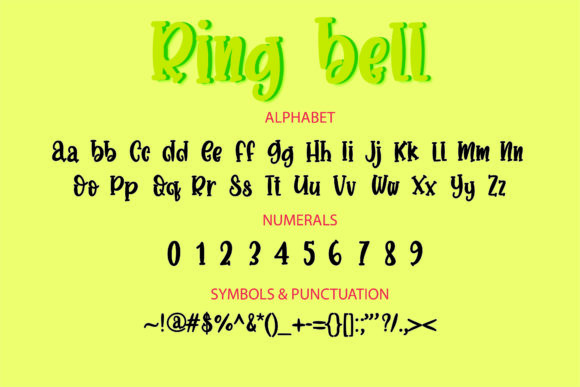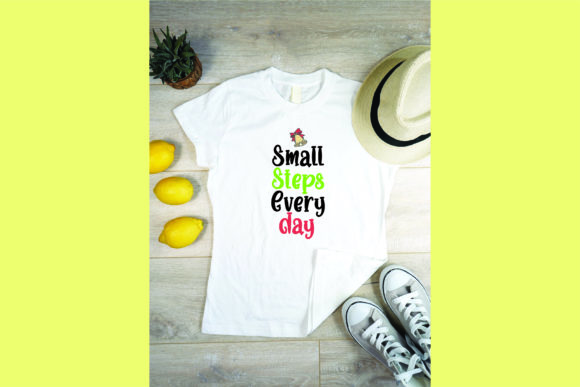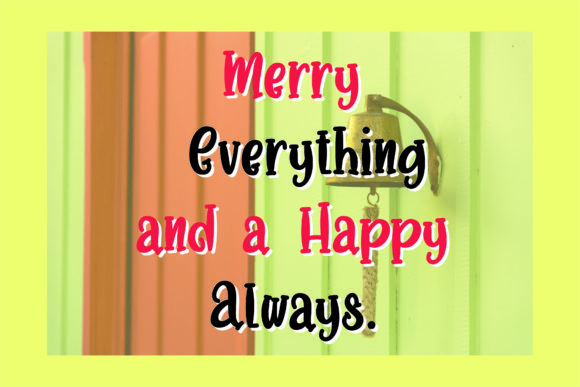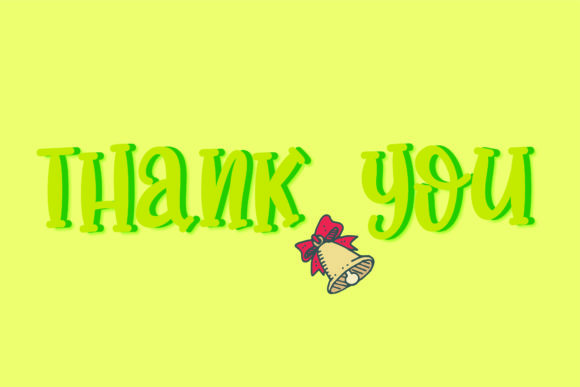
Introduction to Ring Bell Font
Have you ever stared at a blank page, eager to bring your creative project to life, but struggling to find the perfect font to make it pop? For designers, the right font can be the difference between a mediocre design and a stunning masterpiece. That’s where the Ring Bell Font comes in – a charming, adaptable display font that’s sure to elevate your work.
With its friendly and high-quality design, the Ring Bell Font is an invaluable resource for designers looking to create eye-catching logos, branding, and quotes. Its unique and beautiful touch makes every letter come alive, giving your design a personality that’s hard to ignore. Whether you’re working on a personal project or a professional client, this font is sure to impress.
Key Features of Ring Bell Font
- High-quality design resource ideal for creative projects, offering a unique and eye-catching look.
- Unique characteristics: distinctive bell-inspired design elements, adding a creative touch to any design project.
Honest Review: Ring Bell Font
I recently had the chance to work with the Ring Bell Font for a creative project, and I must say it was a delightful experience. The font is a great design resource that offers a unique aesthetic and versatility. One of the standout features of the Ring Bell Font is its transparent background, which makes it easy to use and manipulate in various design contexts.
- What works well: ✨ The font’s high quality and attention to detail make it a great choice for any design project. The font’s bold and playful design style is perfect for creating eye-catching headlines and titles.
However, I do have to mention a few limitations of the Ring Bell Font. ⚠️ One of the main limitations is that the font is not suitable for small text sizes. The font’s bold design style can make it difficult to read when used in small text sizes.
Overall, I’m very impressed with the Ring Bell Font. Its unique design style and high quality make it a great addition to any designer’s toolkit. Whether you’re working on a creative project or just looking for a new font to try out, I highly recommend checking out the Ring Bell Font.
To get the most out of Ring Bell Font, use it in conjunction with other design elements to create visually appealing and cohesive designs. Experiment with different font sizes, colors, and styles to find the perfect combination.
Common Use Cases for Ring Bell Font
Ring Bell Font is commonly used in a variety of design projects, including logos, brochures, flyers, and social media graphics. Its high-quality design and transparent background make it an ideal choice for creative projects.
Alternatives to Ring Bell Font
Comic Sans MS is a classic font often used in creative projects that require a playful and approachable feel. It’s a high-quality design resource that can add a personal touch to any design. When to use: children’s books, greeting cards, and other projects that need a friendly tone. How it compares to Ring Bell Font: Comic Sans MS has a similar playful feel but lacks the modern and sleek design of Ring Bell Font.
Great Vibes Font is a high-quality, free download font that’s perfect for creative projects that require a fun and energetic vibe. It has a transparent background, making it easy to use in designs. When to use: social media graphics, advertisements, and other projects that need a lively atmosphere. How it compares to Ring Bell Font: Great Vibes Font has a more energetic feel but lacks the elegant design of Ring Bell Font.